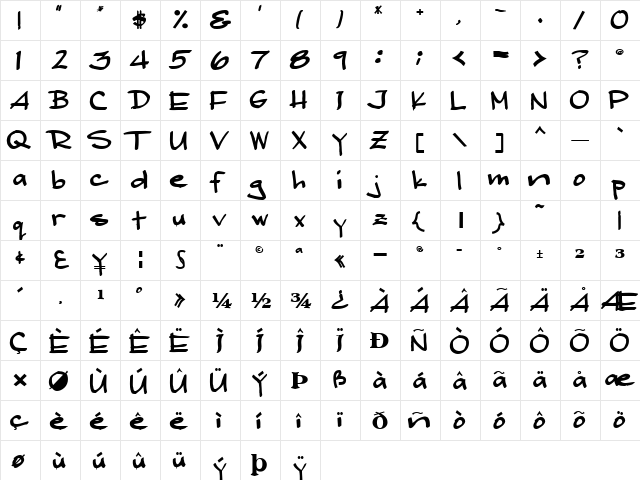
ChristinaFontLight555 Bold Font Preview
ChristinaFontLight555 Bold
ChristinaFontLight555 Bold Font Details
Design Context for ChristinaFontLight555 Typeface
ChristinaFontLight555 is a composed and adaptable typeface that performs quietly and consistently across a wide range of design contexts. Its bold stroke weight gives it real presence on the page.